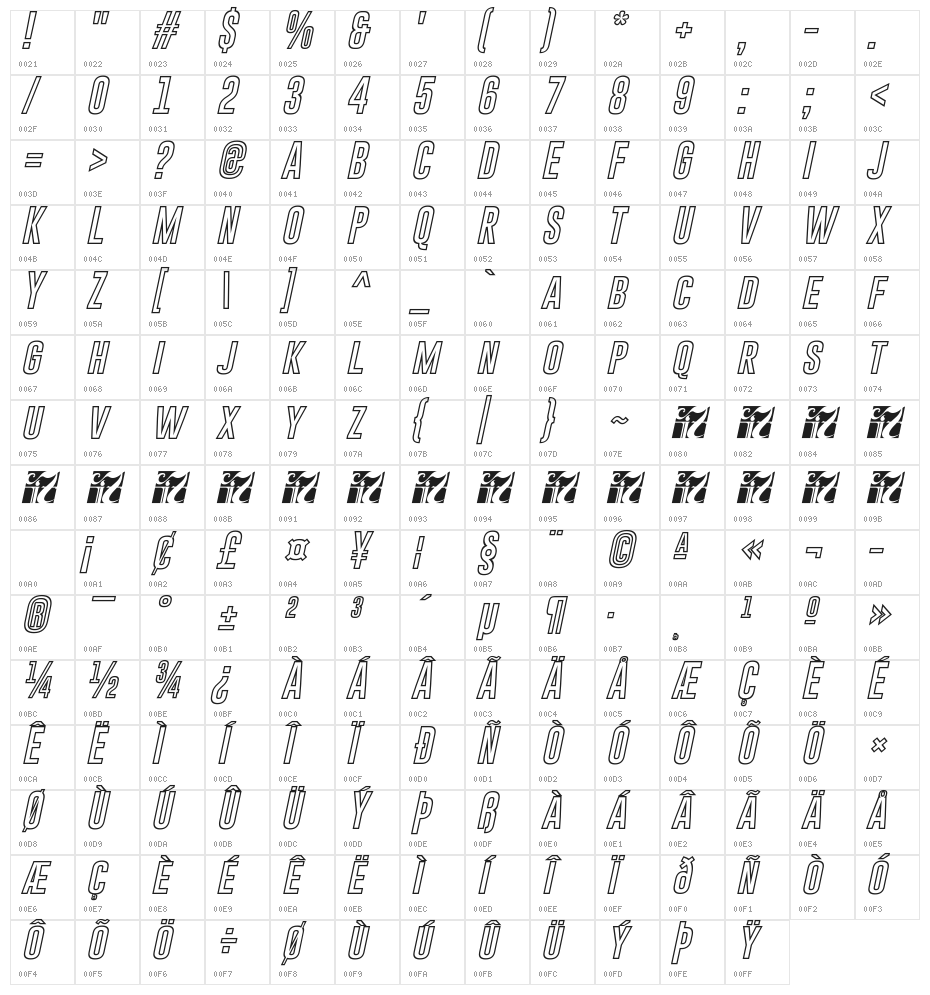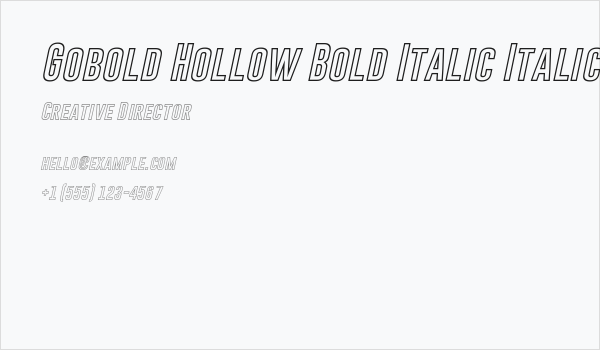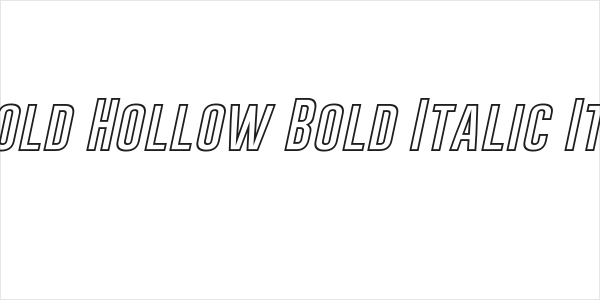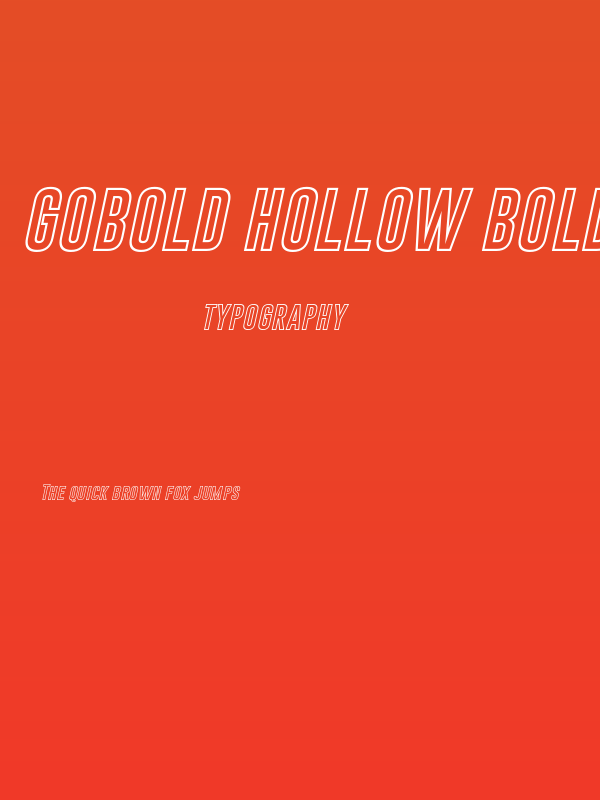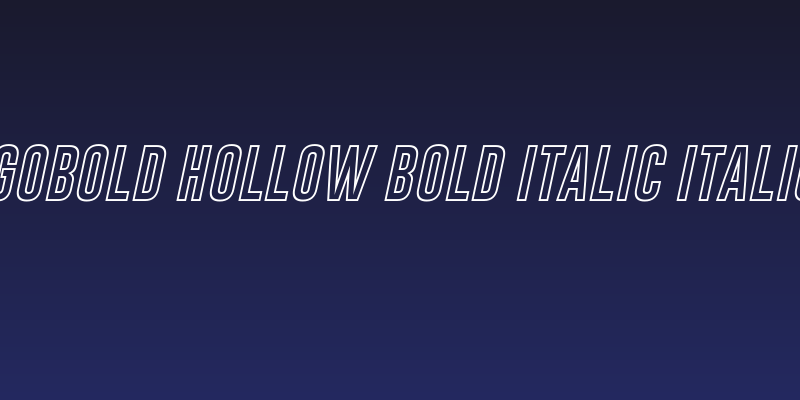
Gobold Hollow Bold Italic Italic Font
Gobold Hollow Bold Italic Italic Description
This font features a bold and hollow design with a distinct italic slant, giving it a dynamic and modern appearance. The uppercase and lowercase letters are consistent in style, with clean lines and a geometric structure that enhances readability. The numerals and special characters maintain the same bold, hollow aesthetic, making them stand out. The font's design is both eye-catching and versatile, suitable for various creative applications. Its hollow nature adds a unique touch, making it ideal for projects that require a strong visual impact.